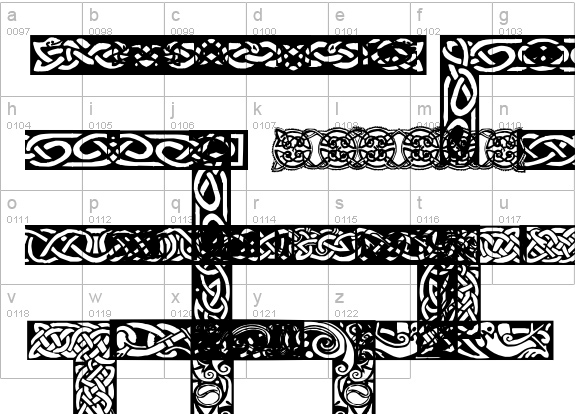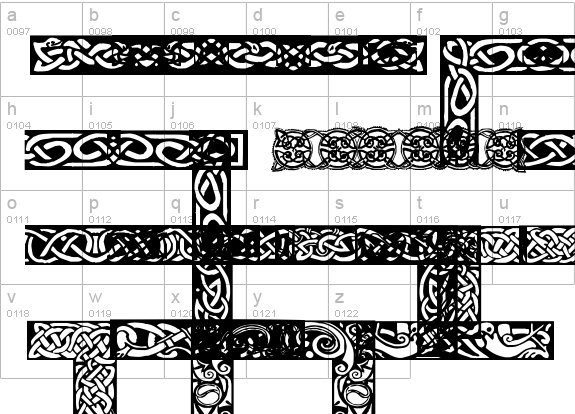
CelticBorders Font Details
CelticBorders font is a stunning display typeface inspired by intricate Celtic knotwork designs. Its ornate and intricate patterns evoke a sense of ancient mystique and sophistication. The font features a unique blend of traditional Celtic elements with a modern twist, making it perfect for adding a touch of elegance to your designs. Best of all, CelticBorders font is completely free to download at FontsMarket.com. Whether you are working on a project that calls for a touch of Celtic charm or simply want to add a unique flair to your designs, this font is sure to impress. Enhance your creations with the timeless beauty of CelticBorders font today!